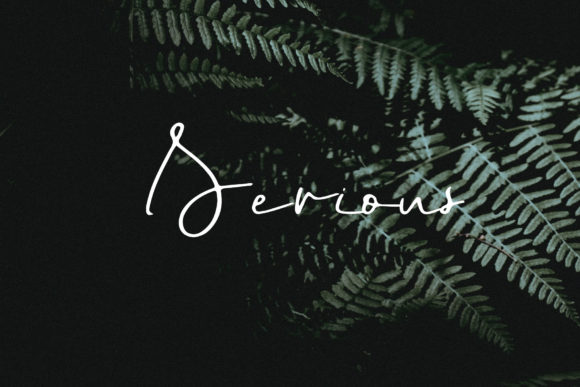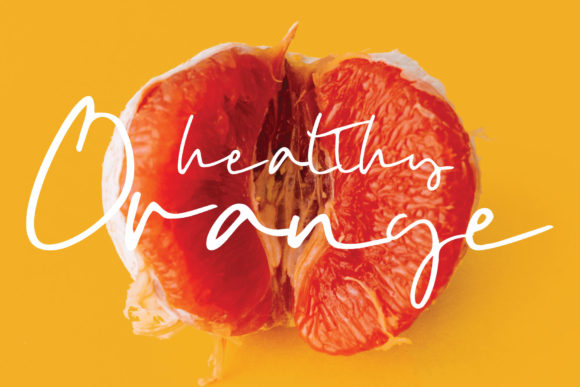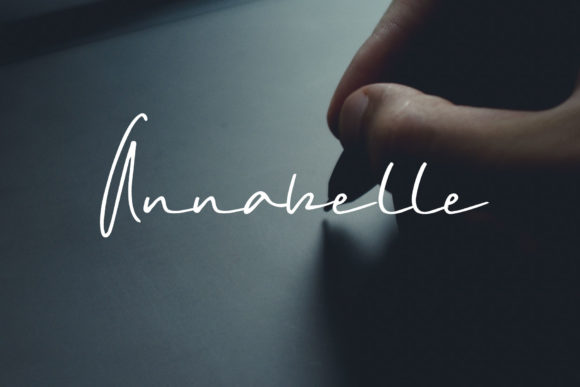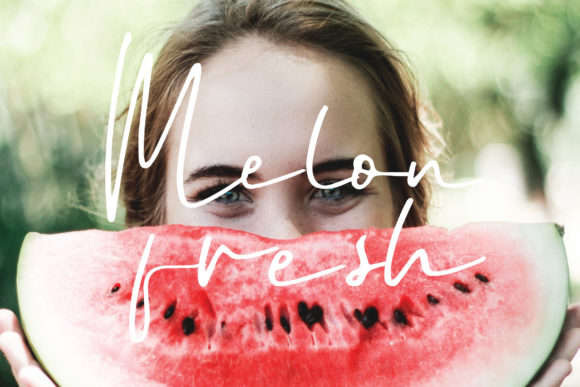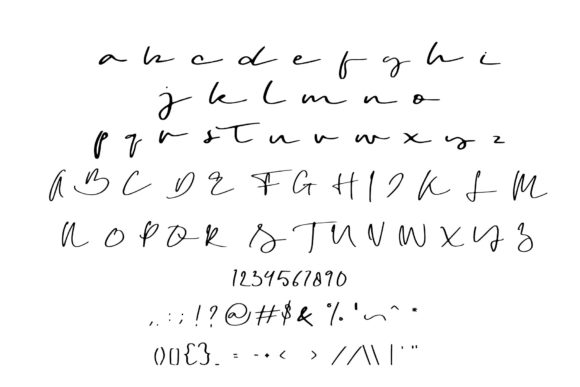
HomeScript FontsSerious Font Script Fonts Serious Font FacebookXPinterestWhatsApp Serious Font Poster 2 Serious Font Poster 3 Serious Font Poster 4 Serious Font Poster 5 About Serious Font Serious is a stunning script font that’s incredibly authentic and raw. DOWNLOAD ON CREATIVE FABRICAThis font is sold and delivered by Creative Fabrica. Font Canyon may earn a commission if you buy through this link. People also explored California Font Fonny Monny Font Beyond Font Gadhen Script Font Maggie Font Sego Kucing Font Quickly Work Line Font Soothing Font Xmas Tree Font 304 0 TagsSerious Font Previous articleSunset FontNext articleBooster Font LEAVE A REPLY Cancel reply Comment: Please enter your comment! Name:* Please enter your name here Email:* You have entered an incorrect email address! Please enter your email address here Website: Save my name, email, and website in this browser for the next time I comment. Personal Use Free Hillgates Personal Use Free Read more about this font Hanifah Personal Use Free Read more about this font Black Friday Personal Use Free Read more about this font Shkoder 1989 Personal Use Free Read more about this font BLOG Exploring Font Trends Shaping Communication in the Digital Era Fonts, like all design elements, are subject to trends. They play a crucial role in communicating a brand's personality,... Free Fonts Risk: Why Free Fonts Can Be Dangerous for Designers Where to Buy American Fonts Online in 2024 Elegant Wedding Invitation Fonts – Handwritten & Script Fonts